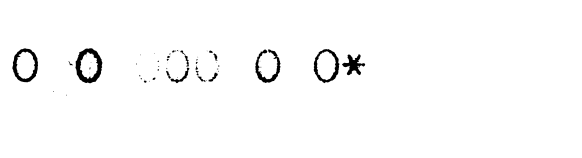
Grandpas Typewriter
by Misprinted Type
The Grandpas Typewriter Font Family was designed by Eduardo Recife and published by Misprinted Type. Grandpas Typewriter contains 5 styles and family package options.
Granpa’s typewriter comes from an antique Olivetti Typewriter Machine I have. This font has all of the effects a typewriter machine can offer you: a regular version, a strong hit version, a light distressed version, a double-hit version and X version, which is a compilation of several typewriter mistakes, tests and stains. This font is specially handy when trying to use a typewriter effect on an edgy/grunge work, where there's no worry about perfection!